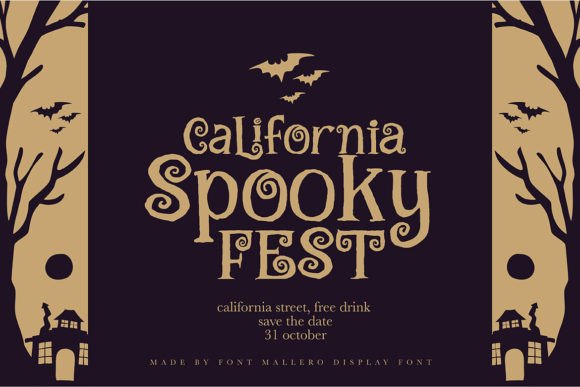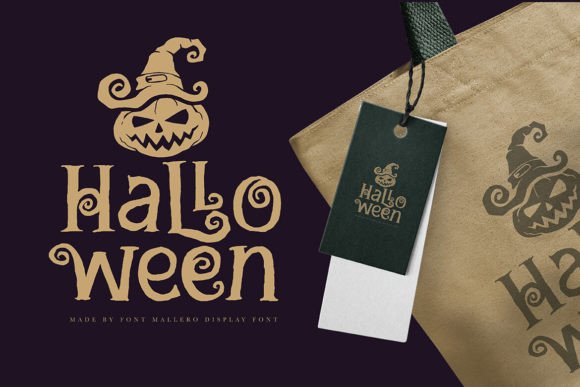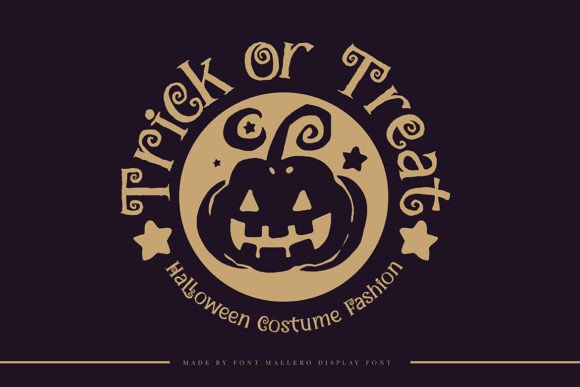
Introduction to Mallero Font
Mallero is a Halloween display font that will look gorgeous on all your designs, invitation, poster designs, book designs, branding materials, logos, and all other project designs.
Key Features of Mallero Font
Why Choose Mallero Font?
Mallero Font offers exceptional quality and versatility, making it a valuable addition to your design toolkit. Whether you’re creating for personal projects or commercial use, Mallero Font delivers professional results.